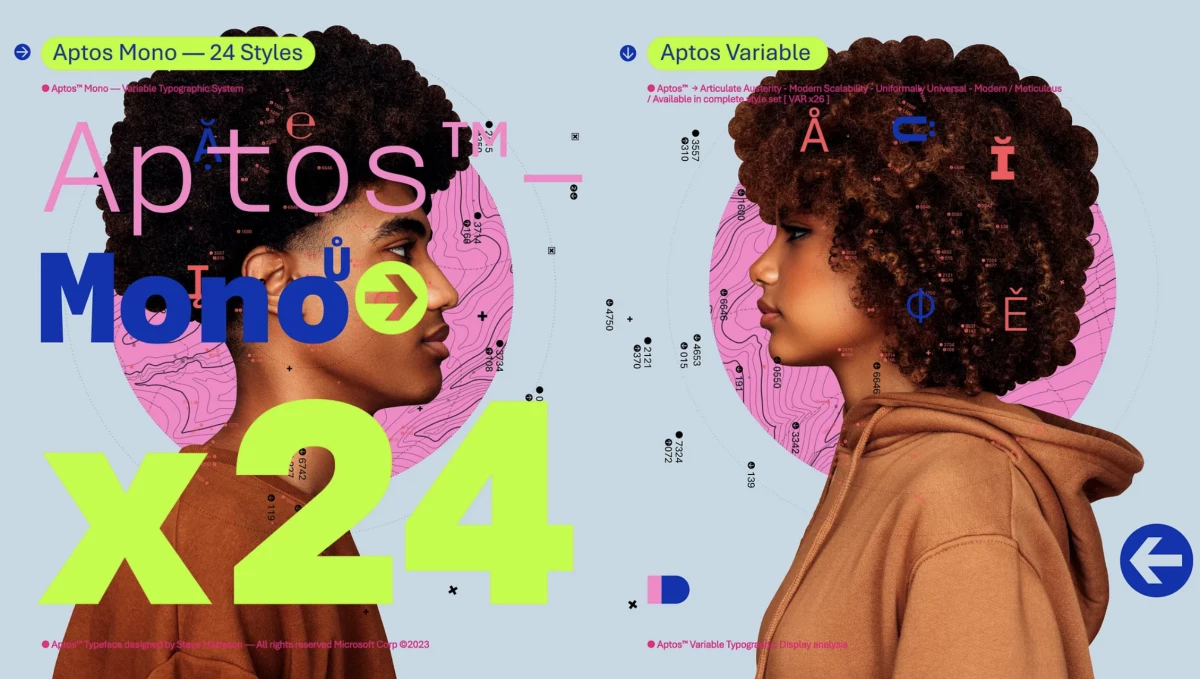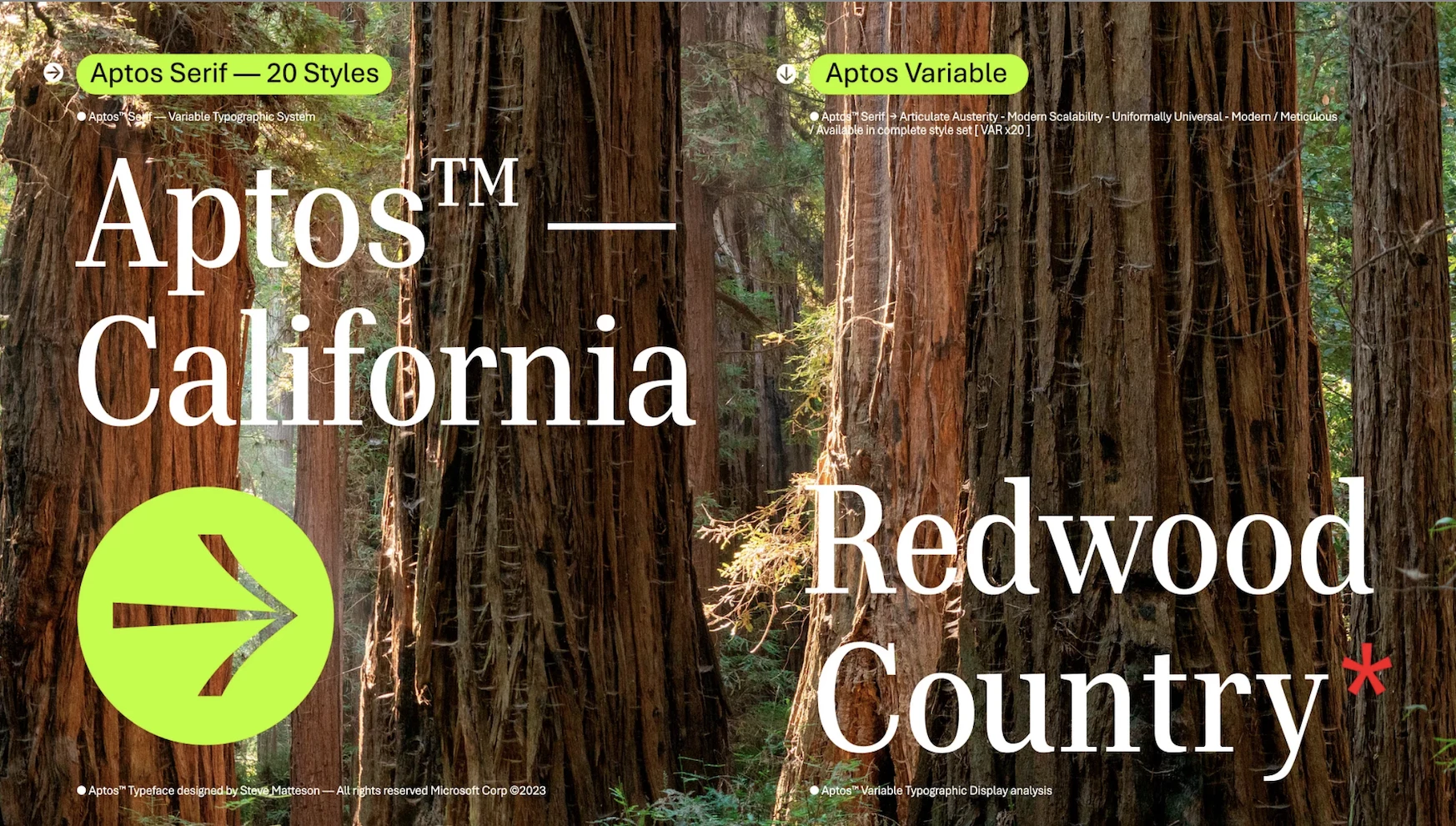
Microsoft Refreshes Look With New Default Font
Microsoft is refreshing its look and changing its new default font for the first time in 15 years.
Aptos, a sans-serif font, will be the successor of Calibri, the company’s current default typeface for Excel, PowerPoint, Outlook, and Word starting today.
It was one of five fonts that the tech giant added to the drop-down font picker months ago. After gathering user feedback, Microsoft decided to rename Bierstadt to its current name, Aptos.
Today we begin the final phase of this major change where Aptos will start appearing as the new default font across Word, Outlook, PowerPoint, and Excel for hundreds of millions of users,” the company shared in a blog post.
Aptos was created by renowned typeface designer Steve Matteson and was named after his favorite town in Santa Cruz, California, to capture the font’s versatility.
Matteson, who worked on brand typography for companies such as Toyota and Google, designed the new default font to be more universal and less mechanical, “with a slight human touch."
He also notes the “universal appeal” of NPR newscaster Carl Kasell and the “astute tone” of American host Stephen Colbert from The Late Night Snow as some of his inspirations.
“There’s always that little voice inside of me saying, ‘You know, you gotta try to sneak in a little bit of humanity. You can’t just use rulers and straight edges and French curves to make all these shapes mechanical.’ I did that by adding a little swing to the R and the double stacked g,” he explained.
According to the company, Aptos will come with a variation of different font weights that help set modes and direct the reader’s attention.
“Now the lowercase l has a distinctive tail, separating it from the capital I. The heads of i’s and j’s are circular dots as opposed to grotesque squares. 6 is single stroked while two piled ellipticals make 8,” the company shared.
Aptos will roll out as the default font in Microsoft Office and 365 apps starting today and throughout the coming months.